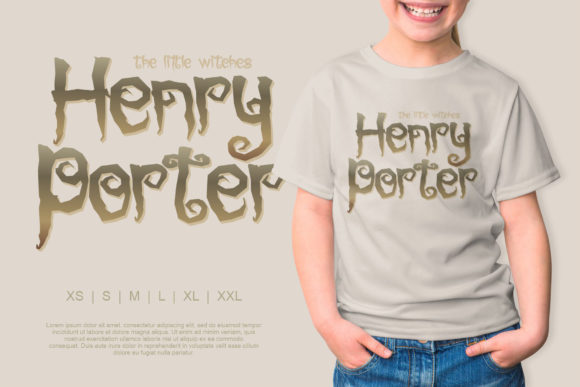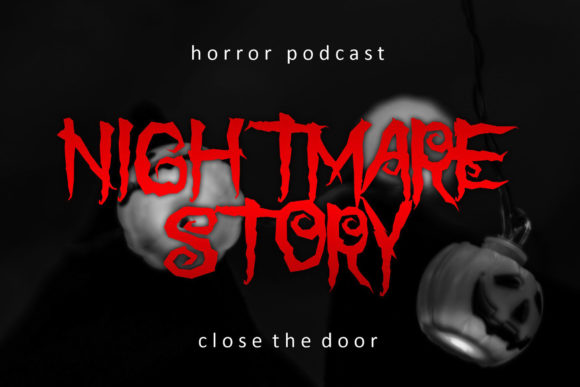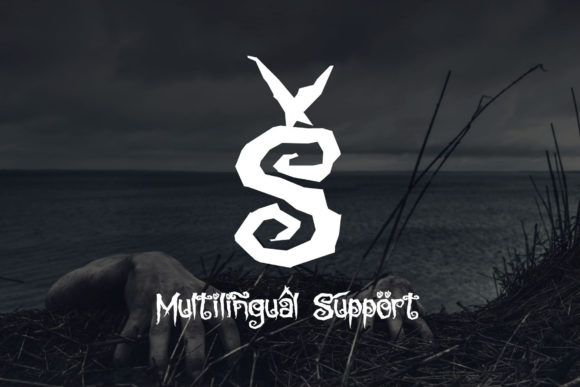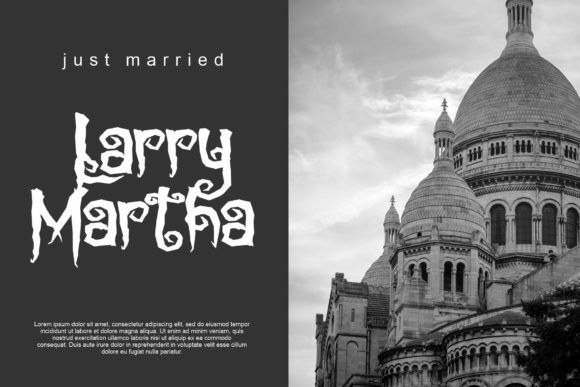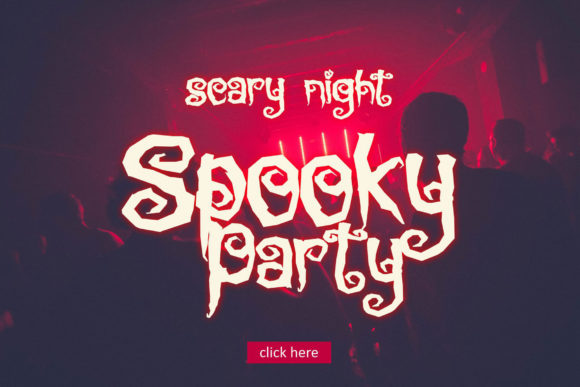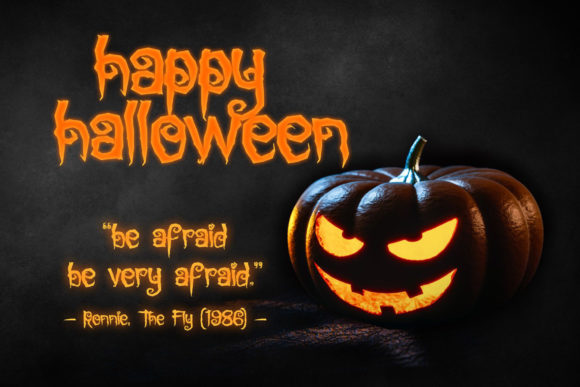
Cadabra Font: The Ultimate Display Font for Spooky Halloween Designs
Cadabra is an incredibly unique and interesting display font. A little bit quirky, this font looks incredibly adept on a wide variety of Halloween contexts! Whether you’re a designer, crafter, or simply a Halloween enthusiast, Cadabra font is sure to cast a spell on your audience. In this article, we’ll dive into the world of Cadabra font, exploring its features, uses, and benefits for your next spooky project.
What Makes Cadabra Font So Special?
Cadabra font is a one-of-a-kind display font that exudes a playful, yet eerie vibe. Its quirky design makes it perfect for Halloween-themed projects, such as invitations, posters, and social media graphics. The font’s unique character set includes letters, numbers, and punctuation marks that are designed to resemble spooky, mystical symbols. With Cadabra font, you can add a touch of whimsy and magic to your designs.
Key Features of Cadabra Font
- Unique and quirky design: Cadabra font boasts an unconventional design that’s sure to grab attention.
- Halloween-themed: The font’s spooky vibe makes it perfect for Halloween projects, from invitations to decorations.
- Display font: Cadabra font is designed for display purposes, making it ideal for headlines, titles, and short phrases.
Uses for Cadabra Font
Cadabra font is versatile and can be used in a variety of contexts, including:
- Halloween invitations: Create spooky and inviting invitations for Halloween parties, trick-or-treat events, or haunted house attractions.
- Social media graphics: Add a touch of Halloween magic to your social media posts, tweets, and Instagram stories.
- Posters and flyers: Design eye-catching posters and flyers for Halloween events, such as costume contests, pumpkin carving competitions, or horror movie screenings.
- Crafting projects: Use Cadabra font to add a personal touch to your Halloween crafting projects, such as DIY decorations, cards, or gift tags.
Benefits of Using Cadabra Font
By incorporating Cadabra font into your designs, you’ll enjoy several benefits:
- Stand out from the crowd: Cadabra font’s unique design ensures your Halloween projects will stand out from the crowd.
- Time-saving: The font’s pre-designed characters save you time and effort, allowing you to focus on other aspects of your project.
- Easy to customize: Cadabra font can be easily customized to fit your project’s specific needs, from color schemes to font sizes.
Tips for Using Cadabra Font
To get the most out of Cadabra font, follow these tips:
- Pair with complementary fonts: Combine Cadabra font with other fonts that complement its quirky, spooky vibe.
- Experiment with colors: Try out different color schemes to enhance the font’s Halloween theme.
- Use it sparingly: Cadabra font is best used in short phrases or titles, as its uniqueness can become overwhelming in longer texts.
Cadabra font is a game-changer for designers, crafters, and Halloween enthusiasts looking to add a touch of magic and whimsy to their projects. With its unique design, versatility, and ease of use, Cadabra font is sure to become a go-to choice for spooky Halloween designs. So, don’t be afraid to get creative and cast a spell with Cadabra font!